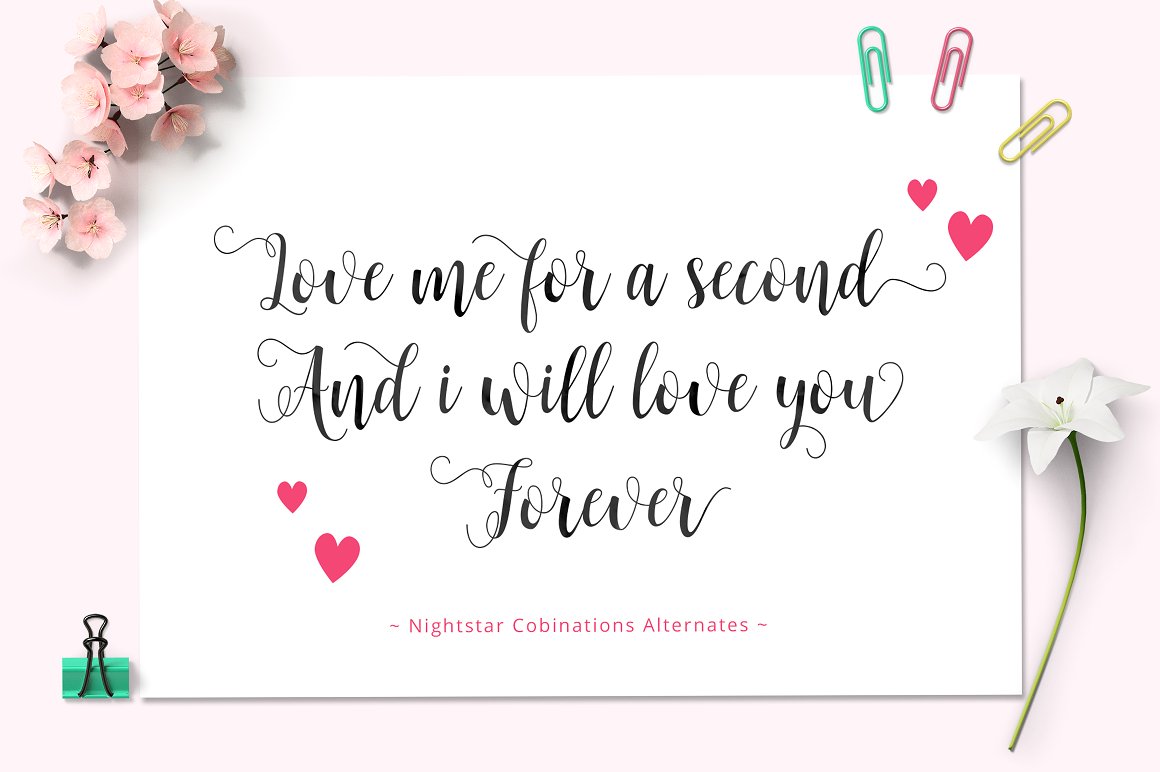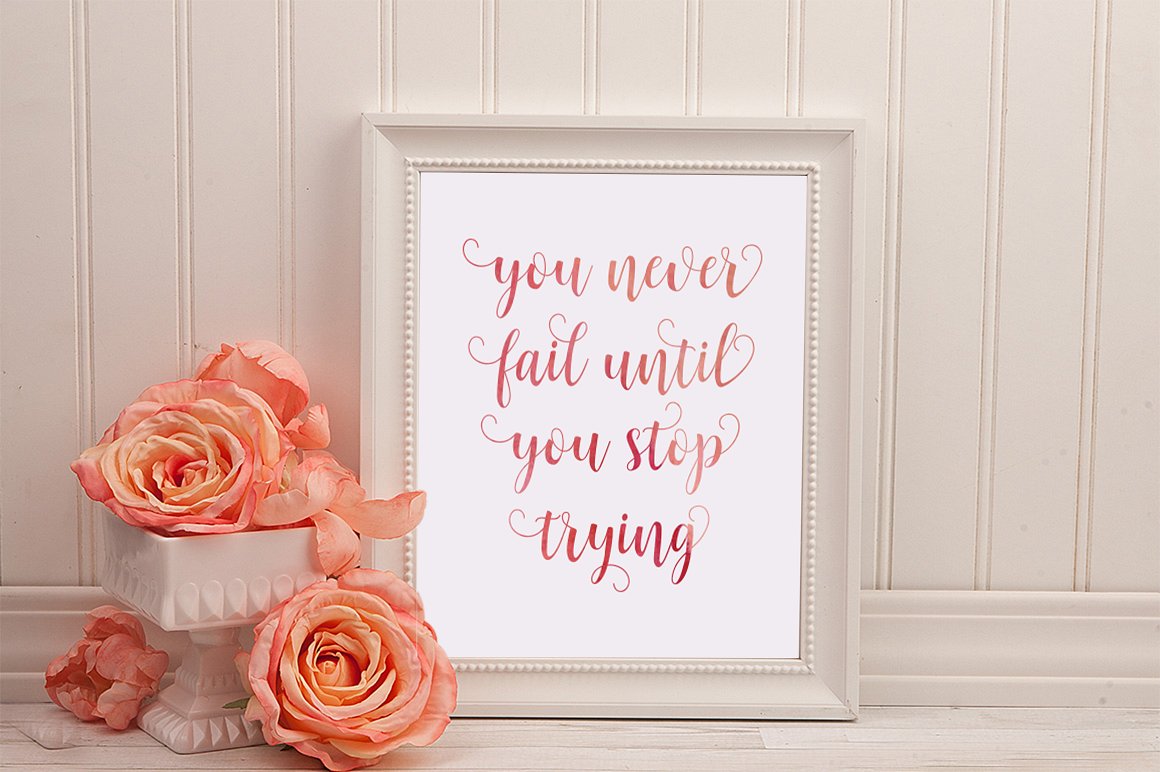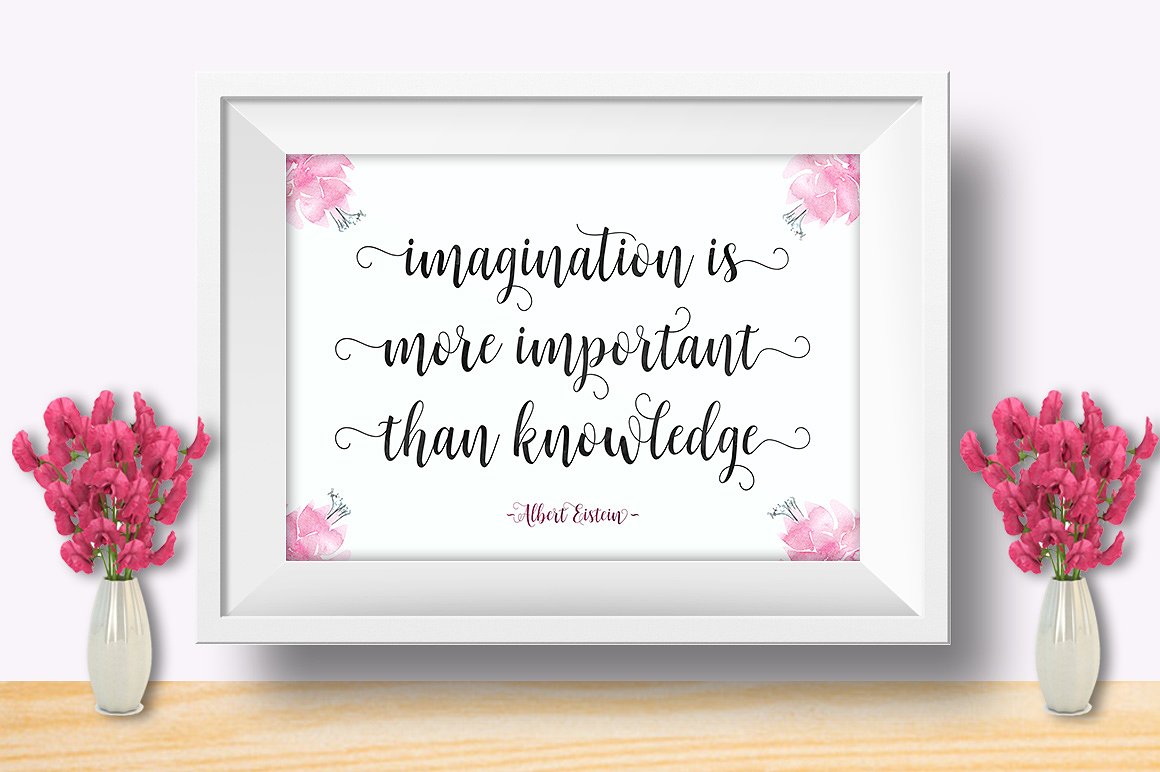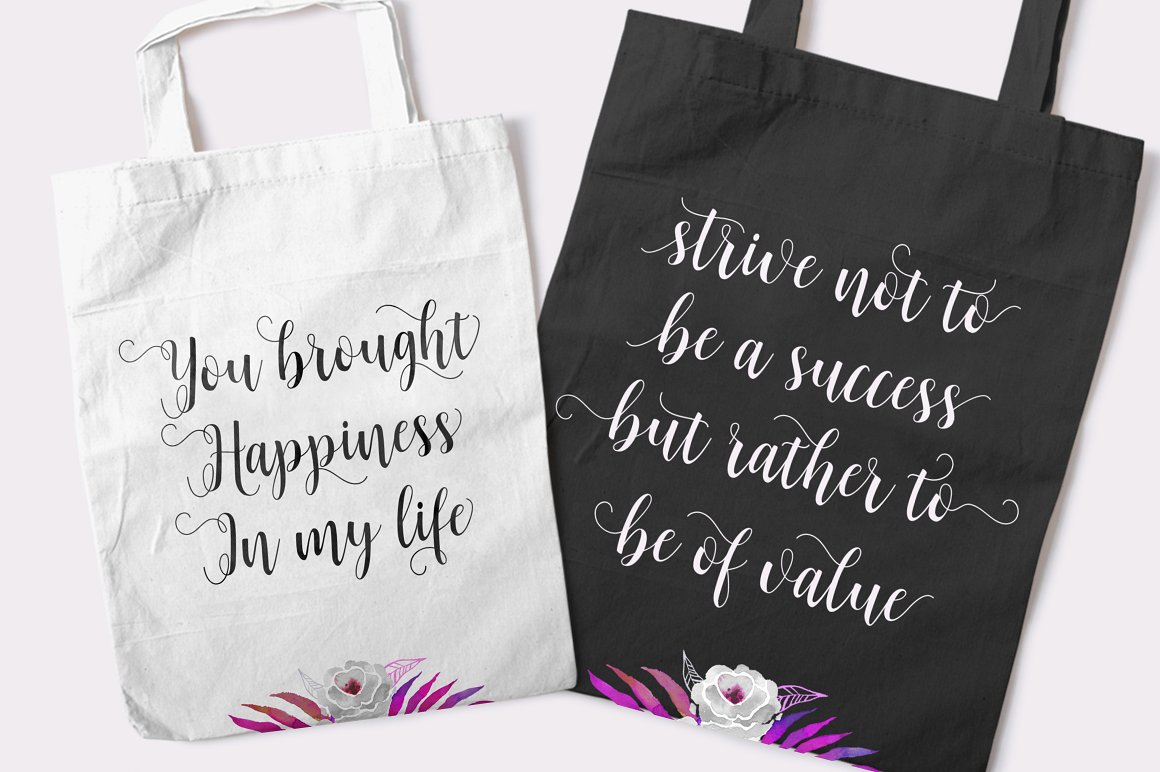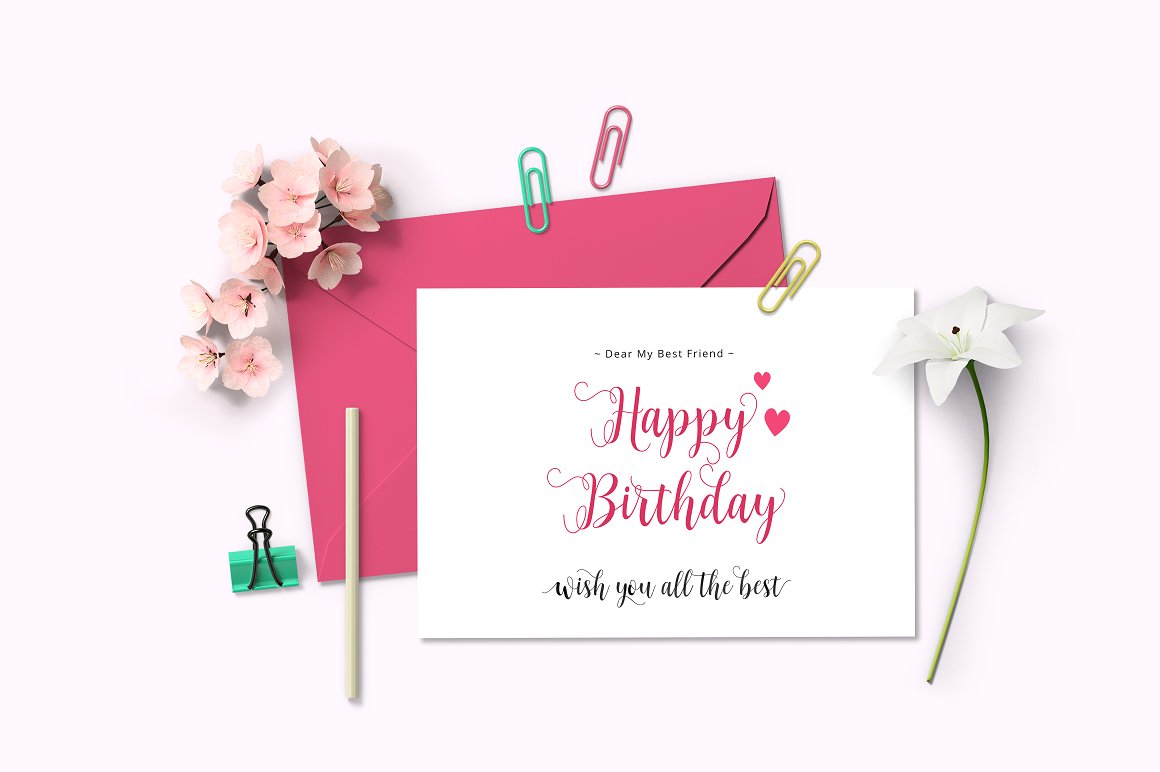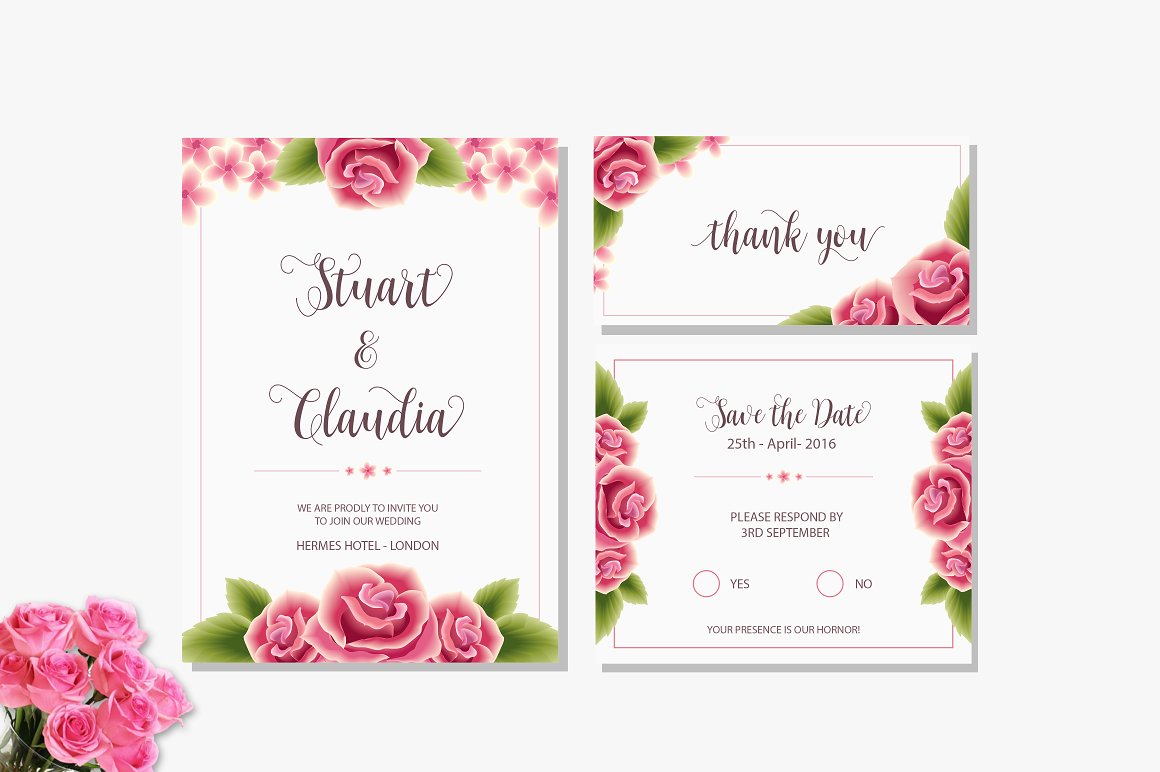
Introduction to Nightstar Script Font Font
Fonts play a crucial role in design, and the Nightstar Script Font font is a typeface that brings both character and versatility to any project. Whether you’re working on a branding project, a website, or a print design, the Nightstar Script Font font offers a unique style that can elevate your work.
Nightstar Script is a fresh, modern script.
It has a handmade calligraphy style and features decorative glyphs It comes packed with 455 unique glyphs, allowing you to create endless combinations.
Key Features of Nightstar Script Font Font
Why Choose Nightstar Script Font Font?
The Nightstar Script Font font is more than just a typeface – it’s a design tool that helps you communicate your message with style and clarity. Its unique character set and versatile design make it suitable for a wide range of applications, from elegant invitations to bold headlines.
With its carefully crafted letterforms and balanced proportions, the Nightstar Script Font font ensures readability and visual appeal across all mediums.
What makes Nightstar Script Font font special?
The Nightstar Script Font font stands out with its unique design, exceptional readability, and versatility across various design applications.